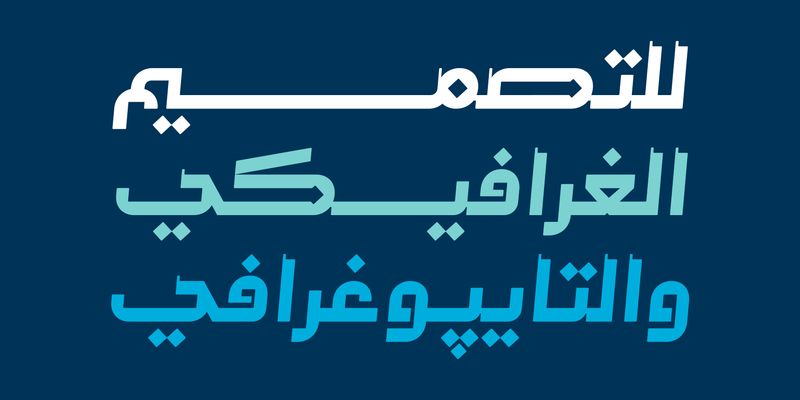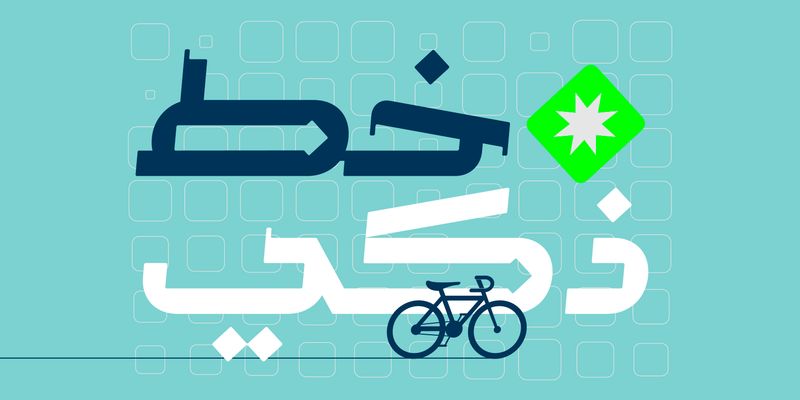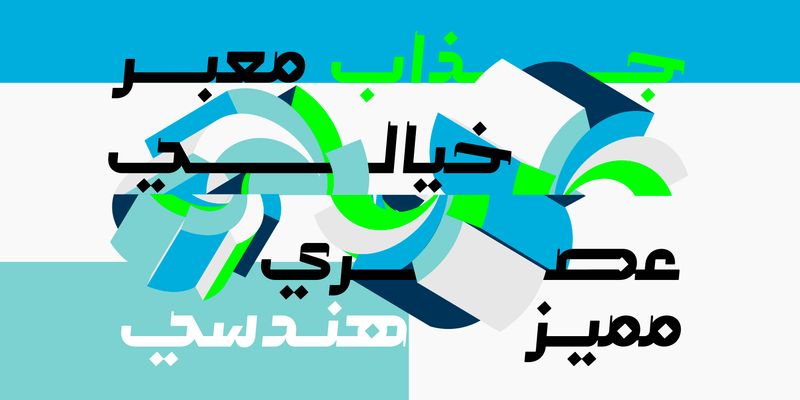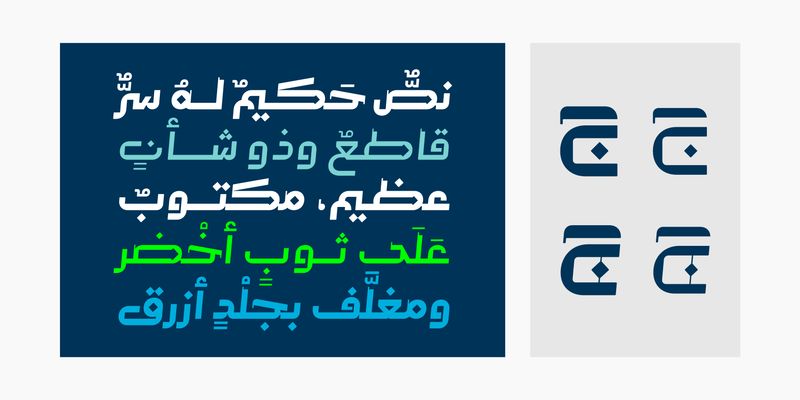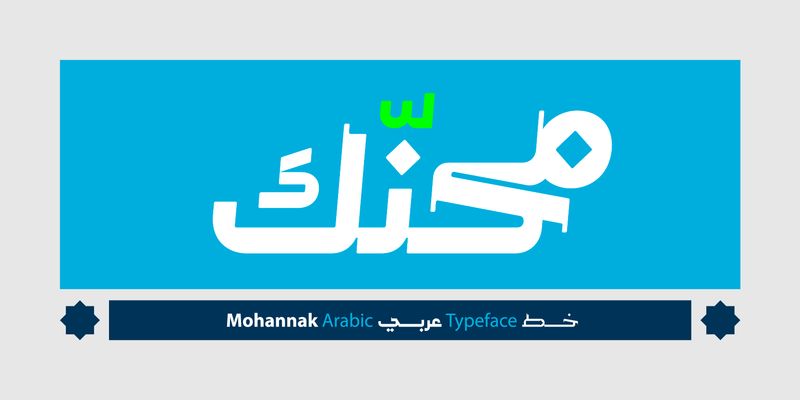
Mohannak (derived from the Arabic word for “Experienced”) is a contemporary typeface that reshapes traditional Arabic letterforms with geometric clarity and refined structure. Its energetic, sharply crafted characters deliver a bold, modern feel, while the interaction of forms introduces a smooth, rhythmic movement. Blending heritage with forward thinking design, Mohannak excels in branding, print layouts, modern typographic projects, and display applications. It is compatible with Windows, macOS, and mobile platforms.
Mostafa El Abasiry is an independent Arabic type designer whose work has helped define a new era of expressive Arabic typography. Since 2009, he has built a distinctive and influential catalogue of Arabic typefaces known for their bold geometry, modern aesthetics, and emotionally resonant visual character. His designs are widely recognized for merging the structural clarity of geometric construction with the creative freedom of contemporary display typography.
Mostafa’s approach is rooted in a balance of mathematical precision and artistic intuition. Many of his typefaces begin as geometric studies - circles, arcs, grids, and modular systems, before evolving into expressive display families with strong visual identity. Other designs explore texture, layering, and experimental forms, expanding the expressive potential of Arabic letterforms in digital environments.
In 2017, Mostafa introduced Tajreed, the first Arabic OpenType‑SVG color font ever created. This pioneering work brought textured, multi‑layered Arabic typography into mainstream digital use and opened a new category of expressive Arabic tools for designers and everyday creators. Tajreed later grew into a broader ecosystem of textured and experimental families that influenced how Arabic typography appears in mobile apps, creative platforms, and user‑generated content.
Mostafa’s typefaces have been used by a wide range of clients, from global brands such as Apple TV+ and Turkish Airlines to millions of everyday creators. Despite this reach, his design process remains deeply personal: every typeface begins with hand‑drawn sketches, geometric construction, and a search for a unique visual voice rooted in Arab visual culture.
Today, Mostafa continues to expand his catalogue with new display families, textured experiments, and modern interpretations of Arabic typographic heritage. His work aims to give designers and creators expressive tools that did not exist before - tools that make Arabic typography feel bold, modern, and alive.